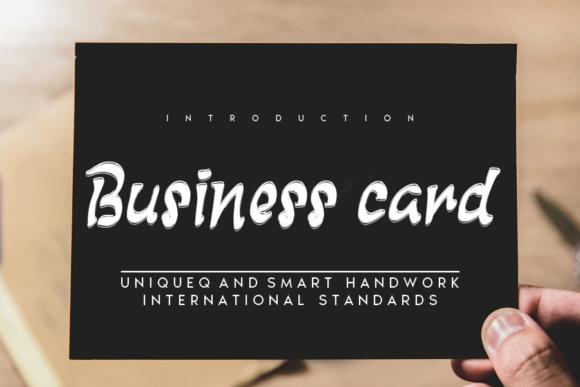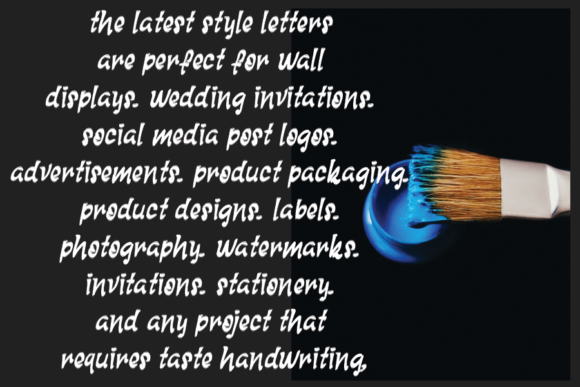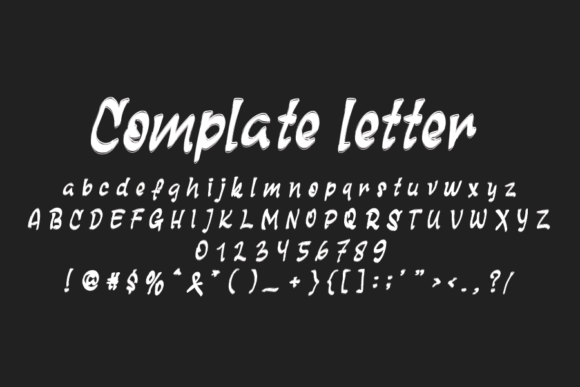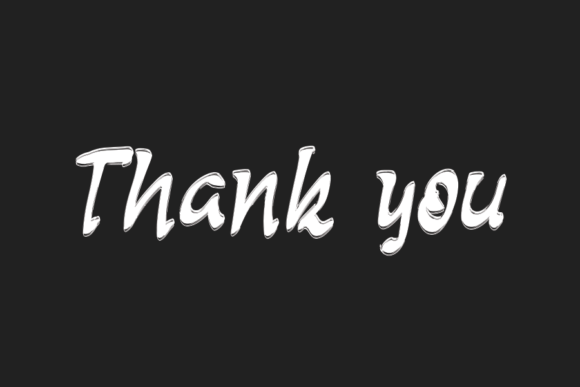
Introducing Brush Sweet Font: The Perfect Handwritten Font for DIY Projects
Are you a designer or crafter looking for a unique and authentic handwritten font to elevate your DIY projects? Look no further than Brush Sweet Font! This gorgeous font is the result of a stunning pairing of a brush pen and pencil, making it look incredibly endearing and authentic.
The Story Behind Brush Sweet Font
Brush Sweet Font is a carefully crafted handwritten font that combines the fluidity of a brush pen with the precision of a pencil. The result is a font that exudes a sense of warmth and personality, perfect for adding a personal touch to any DIY project. Whether you’re working on a craft project, creating a brand identity, or designing a marketing campaign, Brush Sweet Font is sure to make your work stand out.
What Makes Brush Sweet Font So Special?
So, what sets Brush Sweet Font apart from other handwritten fonts? Here are just a few reasons why this font is a cut above the rest:
• Unique pairing of brush pen and pencil: The combination of these two tools gives Brush Sweet Font its distinctive look and feel.
• Handwritten with love and care: Each letter and character has been carefully crafted to ensure that the font looks authentic and endearing.
• Perfect for DIY projects: Whether you’re working on a craft project, scrapbooking, or creating a brand identity, Brush Sweet Font is the perfect choice.
• Easy to read and use: Despite its unique look, Brush Sweet Font is easy to read and use, making it perfect for a wide range of applications.
How to Use Brush Sweet Font in Your DIY Projects
Now that you’ve fallen in love with Brush Sweet Font, you’re probably wondering how to use it in your DIY projects. Here are a few ideas to get you started:
• Crafting and scrapbooking: Add a personal touch to your scrapbook pages, cards, and other craft projects with Brush Sweet Font.
• Brand identity: Use Brush Sweet Font to create a unique and memorable brand identity for your business or product.
• Marketing campaigns: Add a touch of personality to your marketing campaigns with Brush Sweet Font.
• Stationery and invitations: Create beautiful and unique stationery and invitations with Brush Sweet Font.
Tips and Tricks for Getting the Most Out of Brush Sweet Font
Here are a few tips and tricks to help you get the most out of Brush Sweet Font:
• Experiment with different colors and textures: Brush Sweet Font looks great in a variety of colors and textures, so don’t be afraid to experiment.
• Pair it with other fonts: Brush Sweet Font pairs well with a variety of other fonts, so try pairing it with some of your favorite fonts to create a unique look.
• Use it in combination with images: Brush Sweet Font looks great in combination with images, so try using it to add a personal touch to your photos and illustrations.
In conclusion, Brush Sweet Font is a unique and authentic handwritten font that’s perfect for adding a personal touch to any DIY project. With its stunning pairing of brush pen and pencil, this font is sure to make your work stand out. Whether you’re a designer or crafter, Brush Sweet Font is a must-have font that’s sure to inspire your creativity.